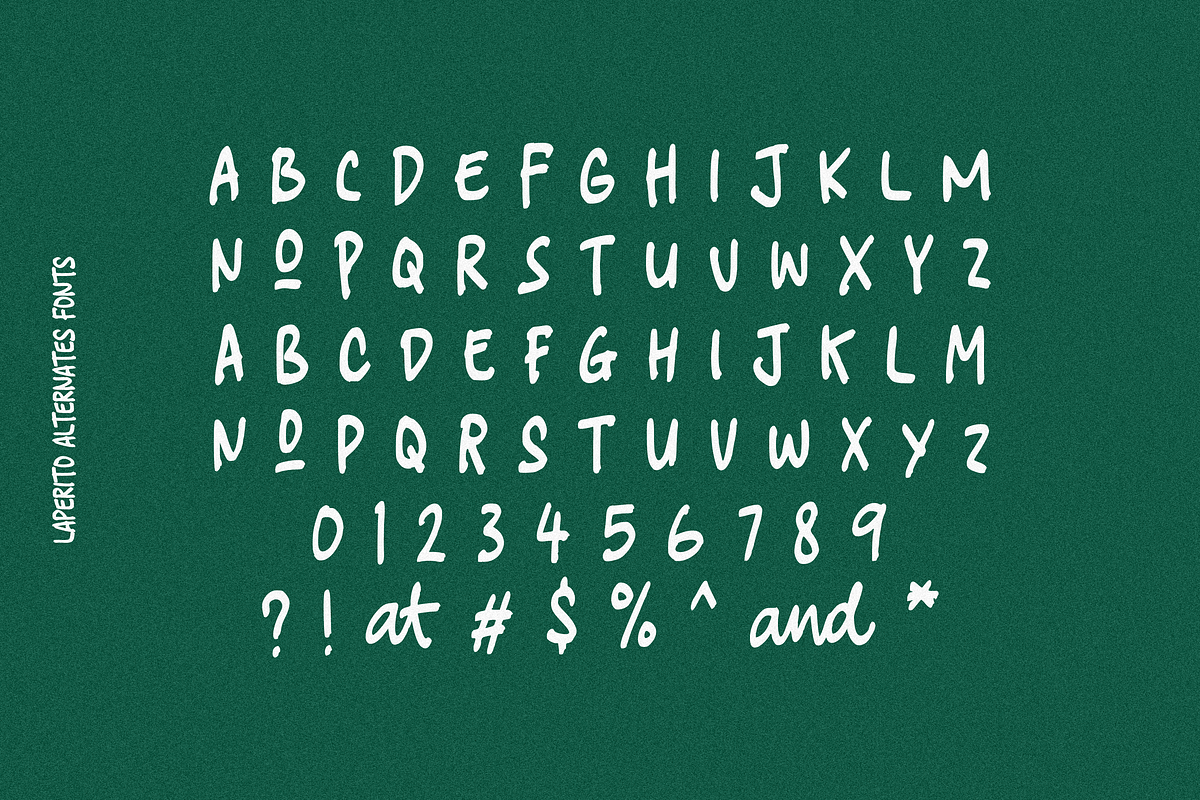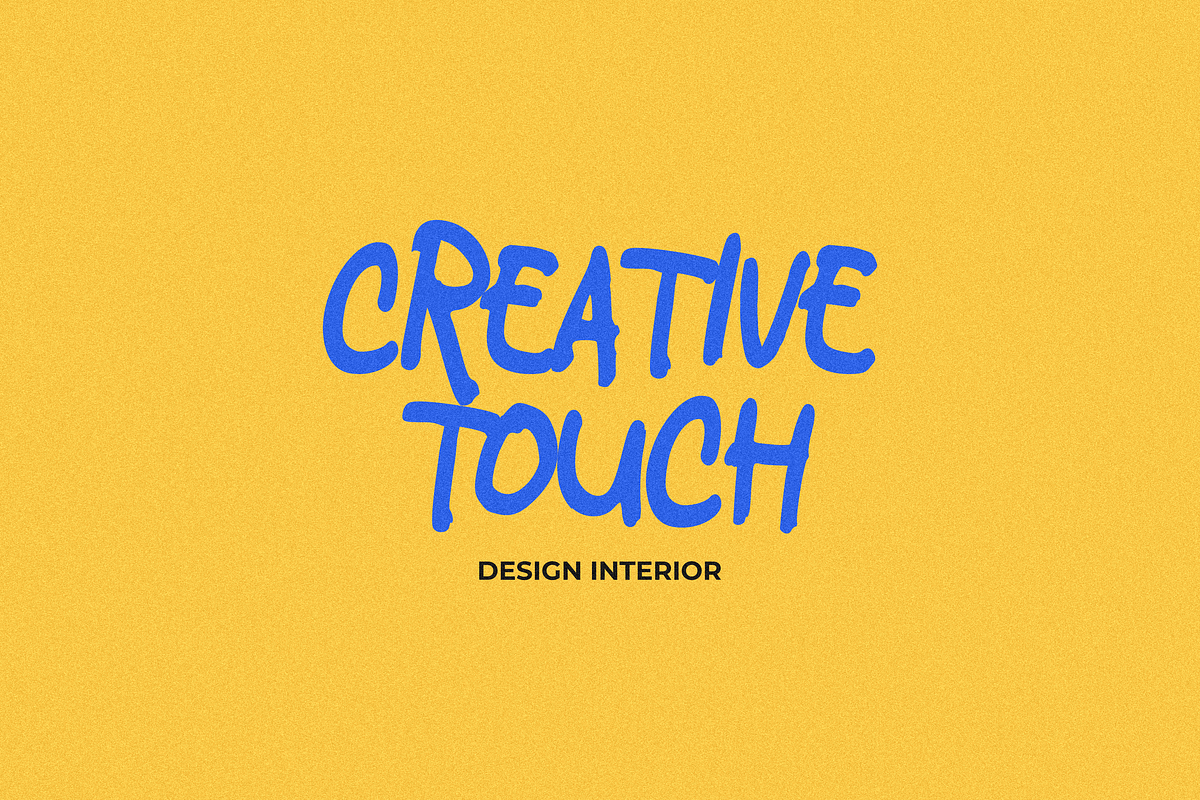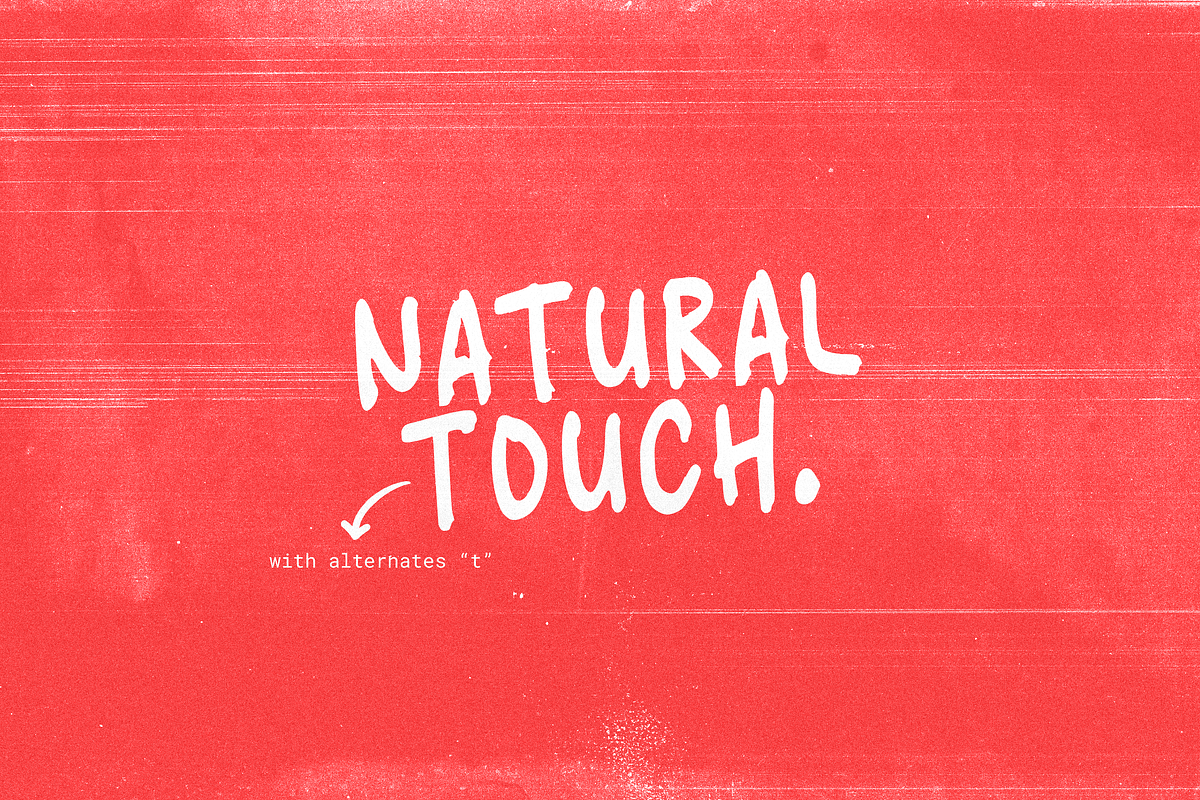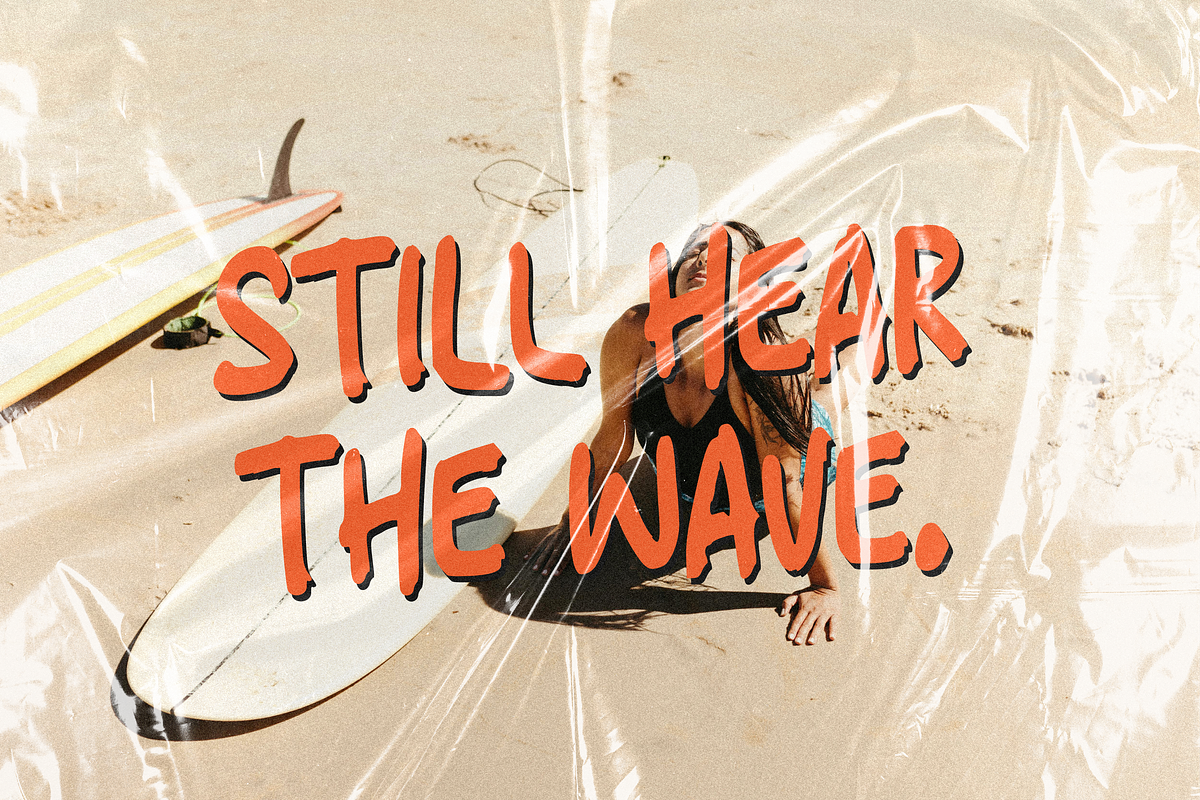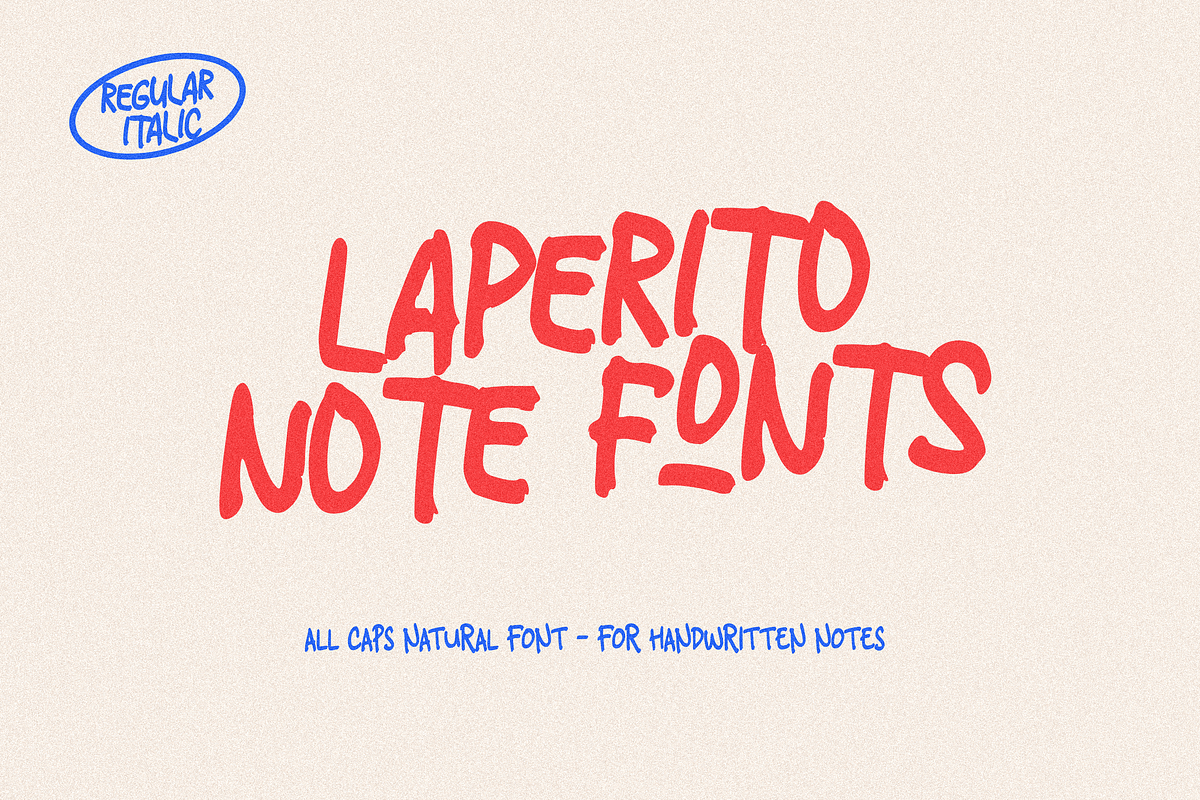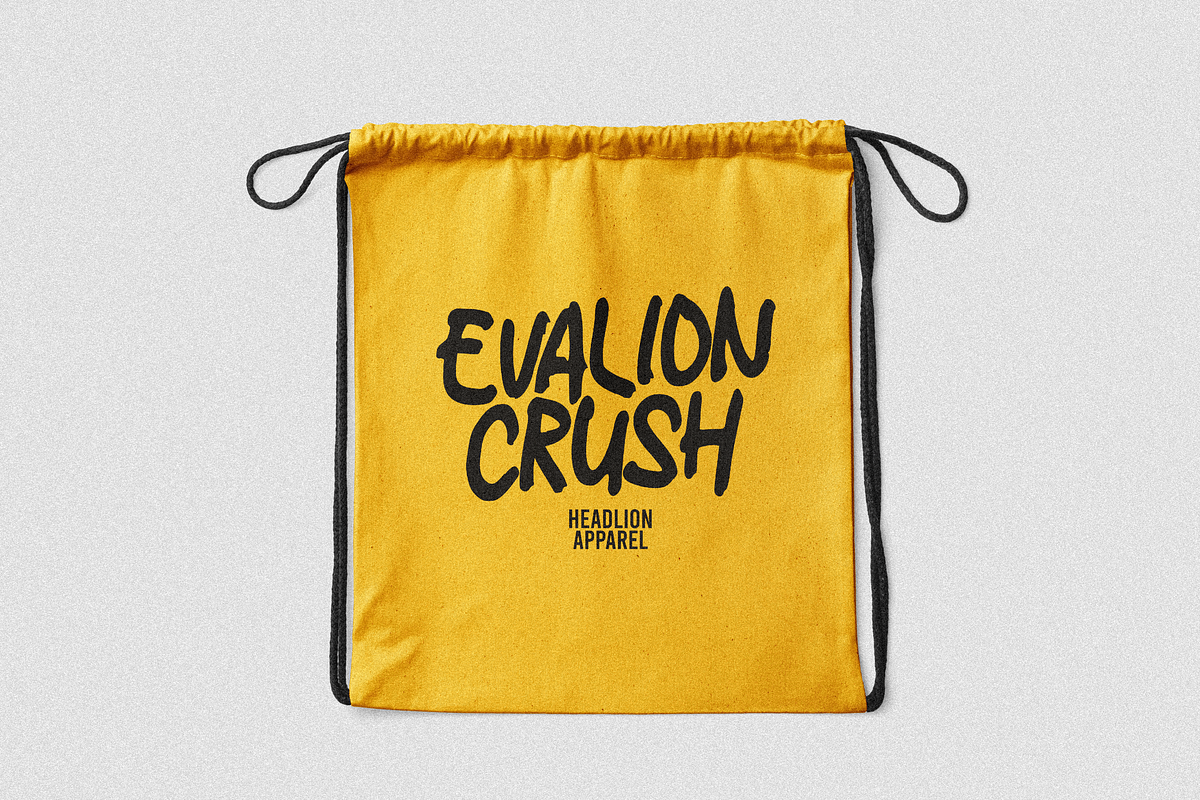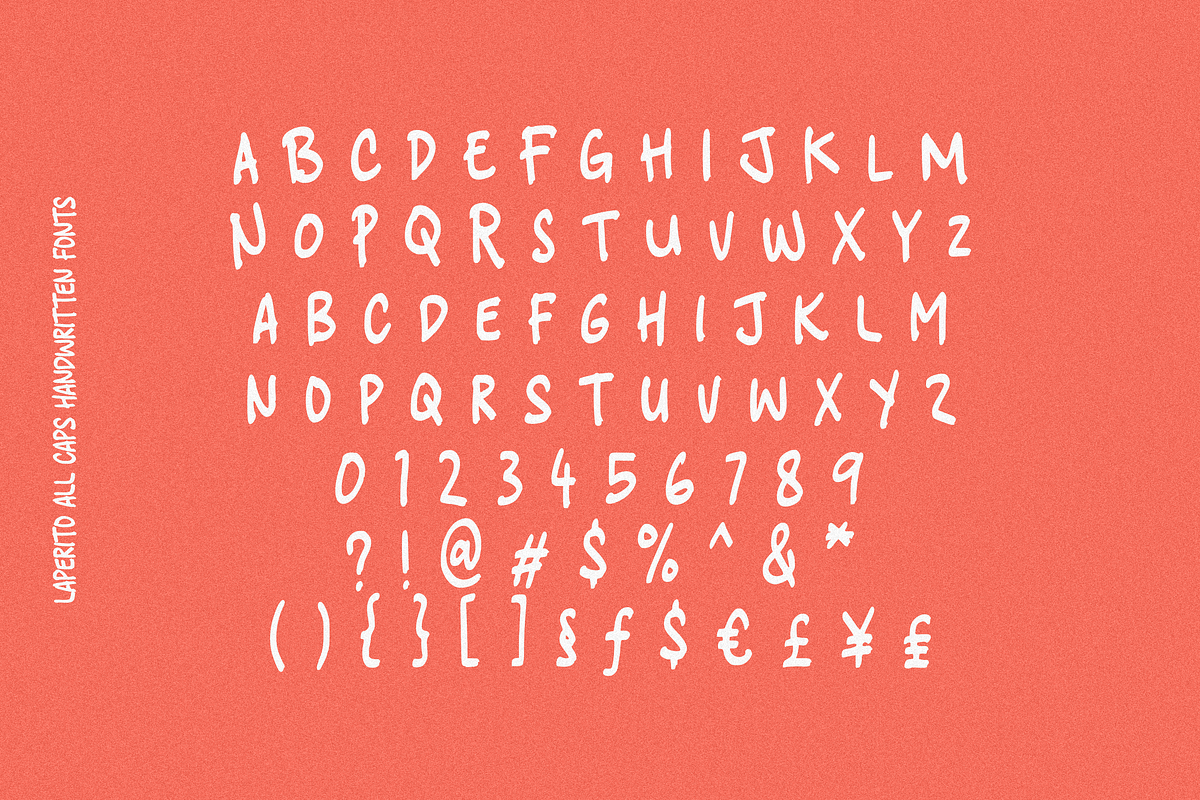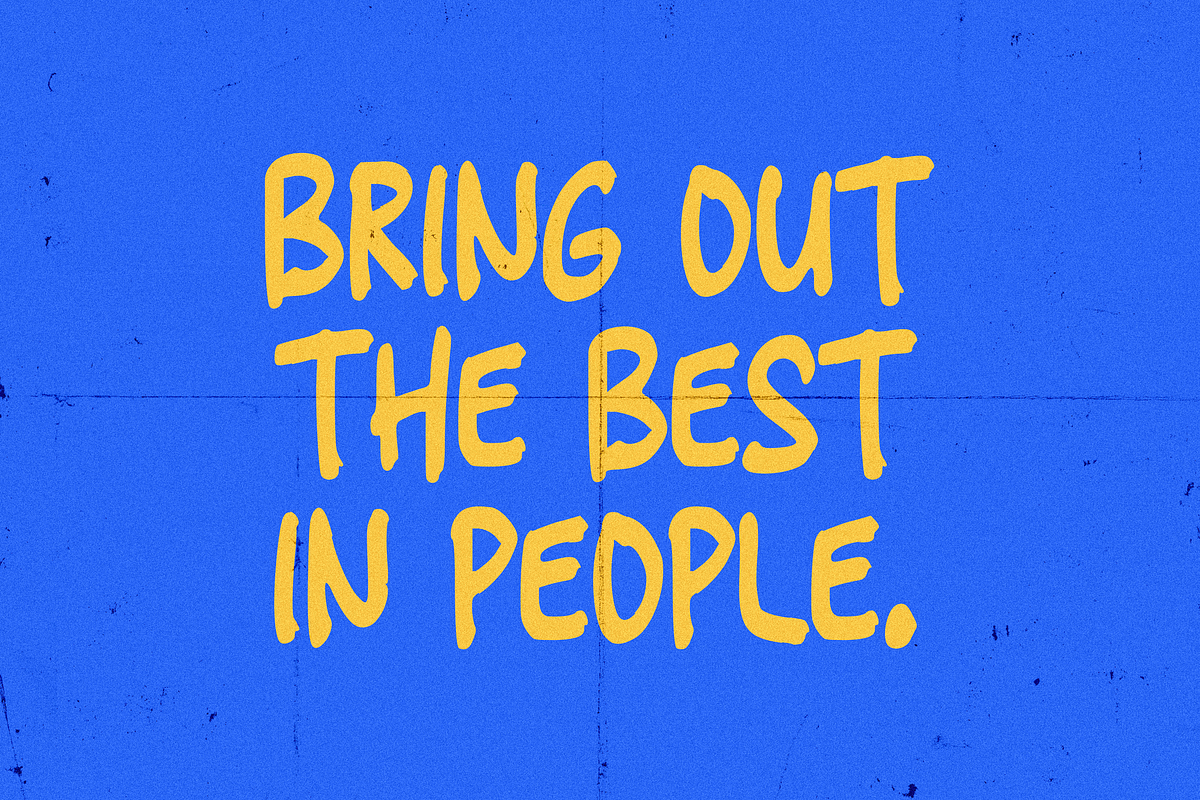
Laperito Handwriting
Laperito is a handwritten themed font with an uppercase marker, giving a bold, natural and realistic impression to your design.
There are alternate fonts available for each character, and are available in two styles, Regular and Italic.
- All caps font
- Numeral